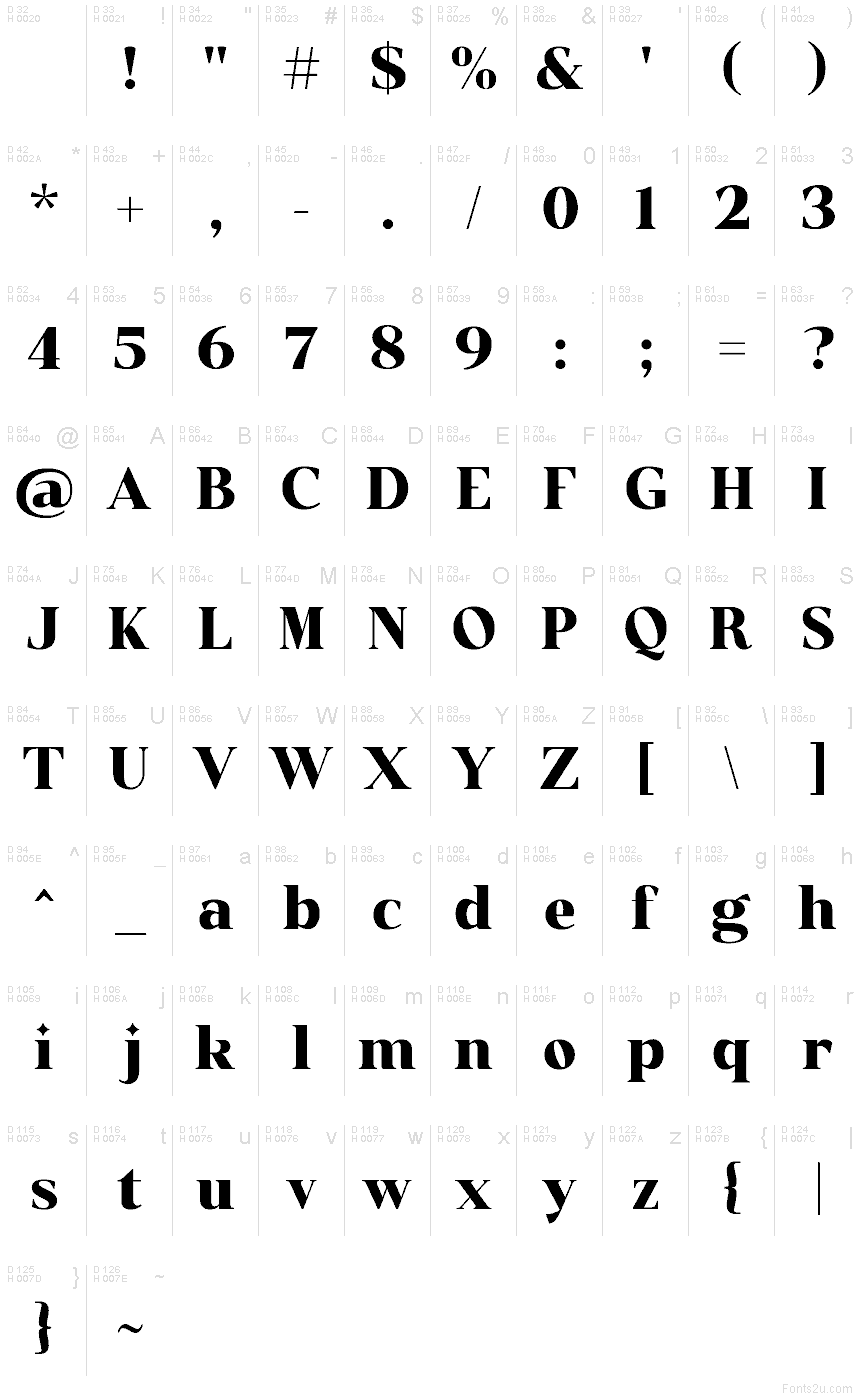
Karina
Karina font by Graphicxell is a free decorative serif font. Its defining charm is the gleaming diamond dot and those sculpted wedge serifs—thick-and-thin strokes that feel both polished and punchy. Letters look carved, not drawn, with crisp shoulders and confident rhythm that reads luxurious without going fussy.
Using Karina brings immediate ceremony to type: luxury branding, boutique logos, beauty packaging, magazine mastheads, wedding invitations, and perfume ads all shine with its dramatic contrast. This free font is happiest at display sizes where the facets catch the eye; give it a touch of generous spacing for headlines. Pair with a clean, understated sans to let Karina do the sparkling.